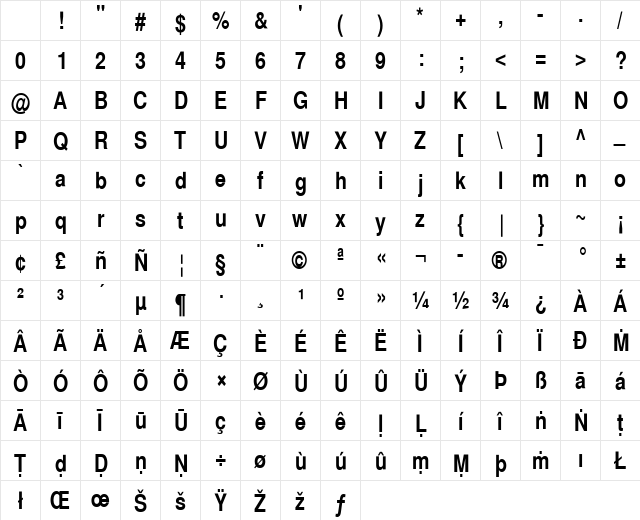
Complete Pali Helvetica Cond Regular glyph index. Displaying only characters natively supported by Pali Helvetica Cond Regular font.
Pali Helvetica Cond is a composed and adaptable typeface that performs quietly and consistently across a wide range of design contexts. Its narrow stance lets it pack a punch even in space-constrained designs.